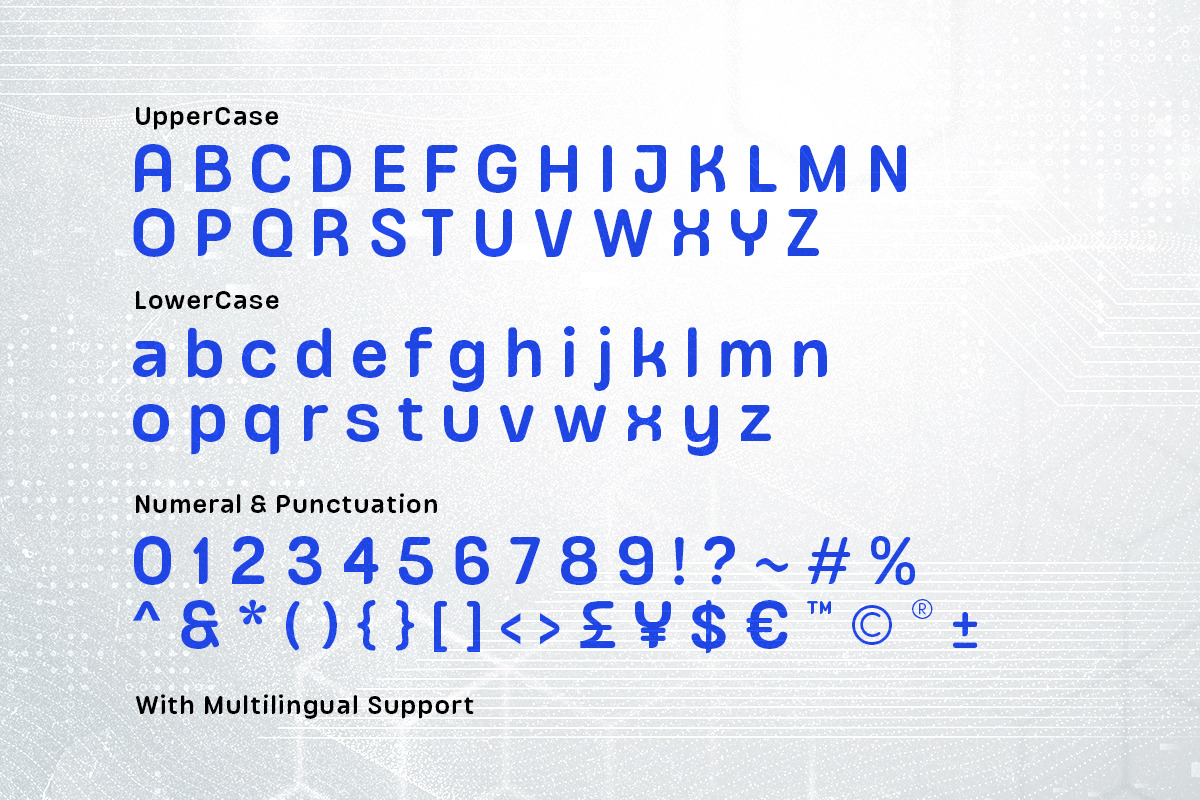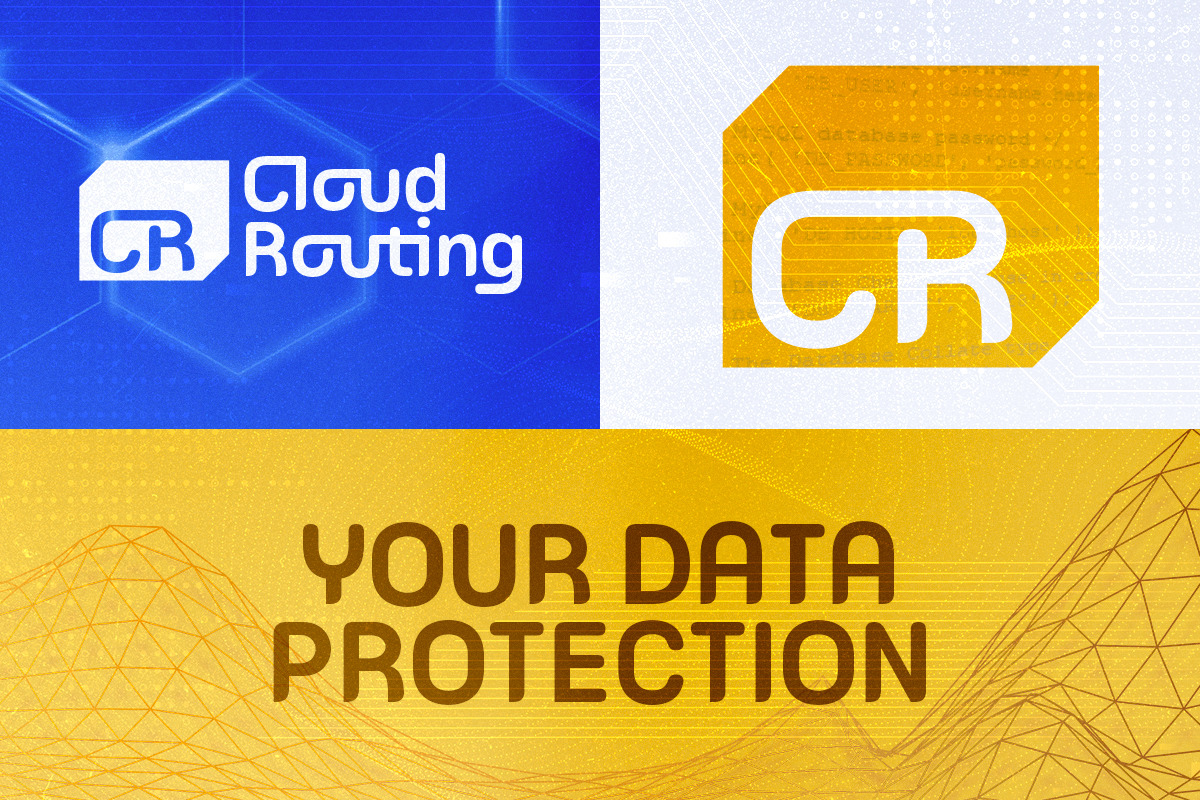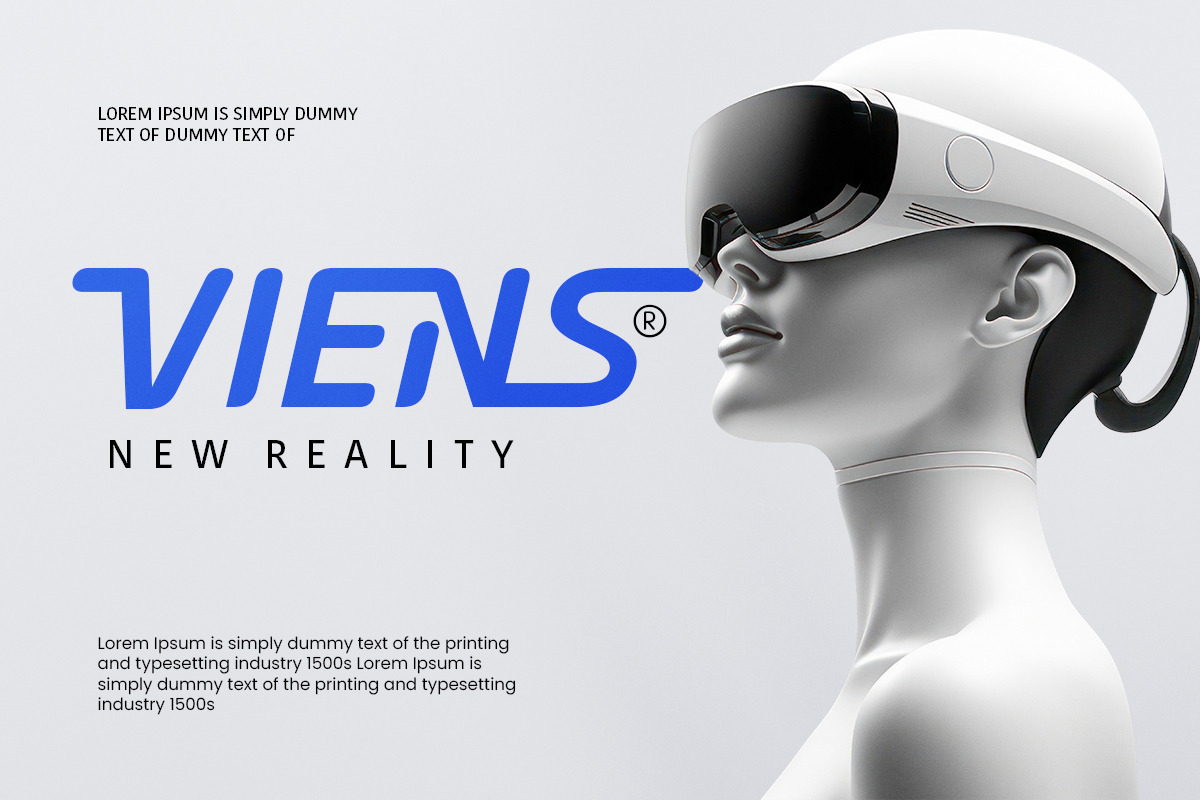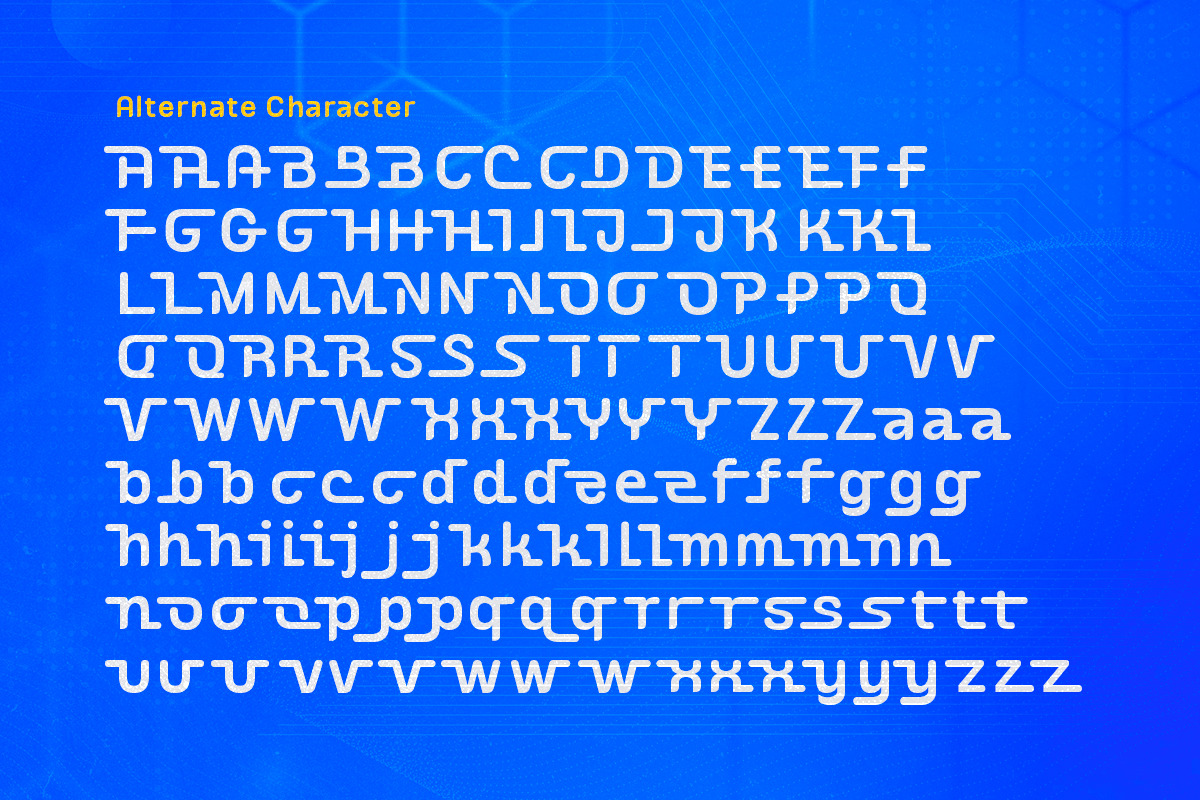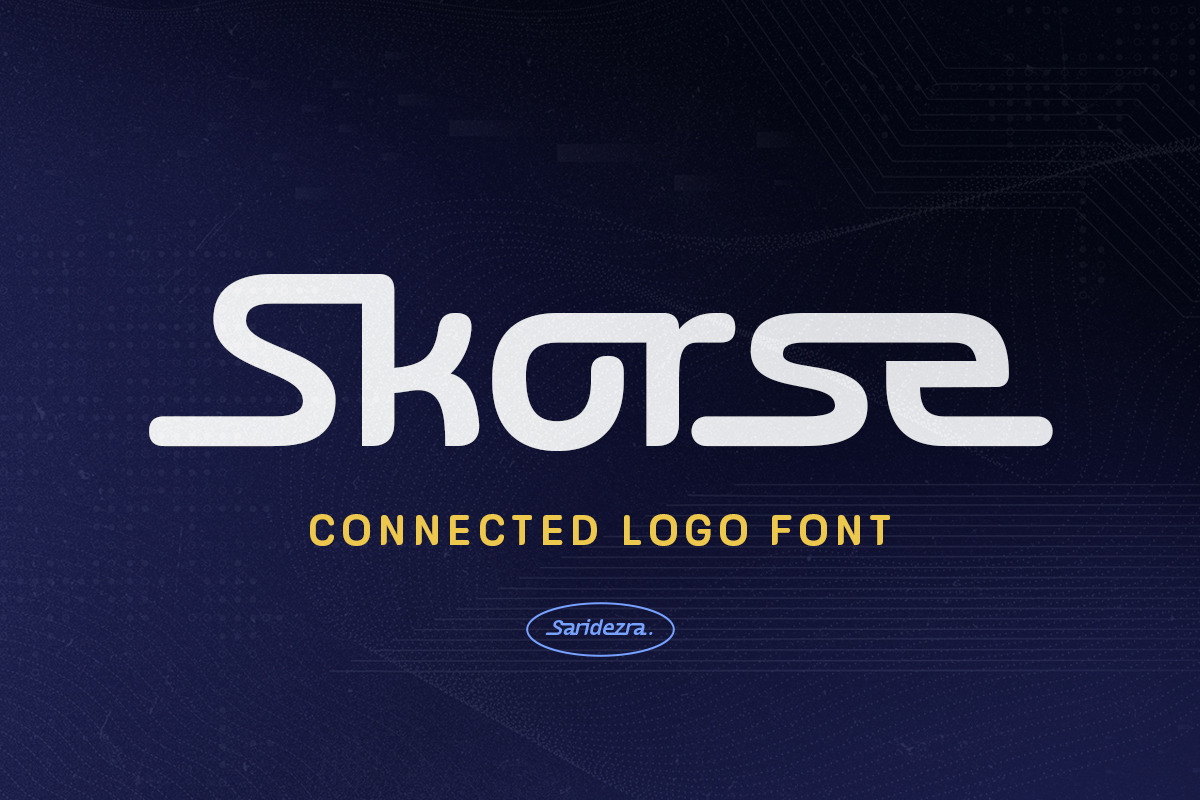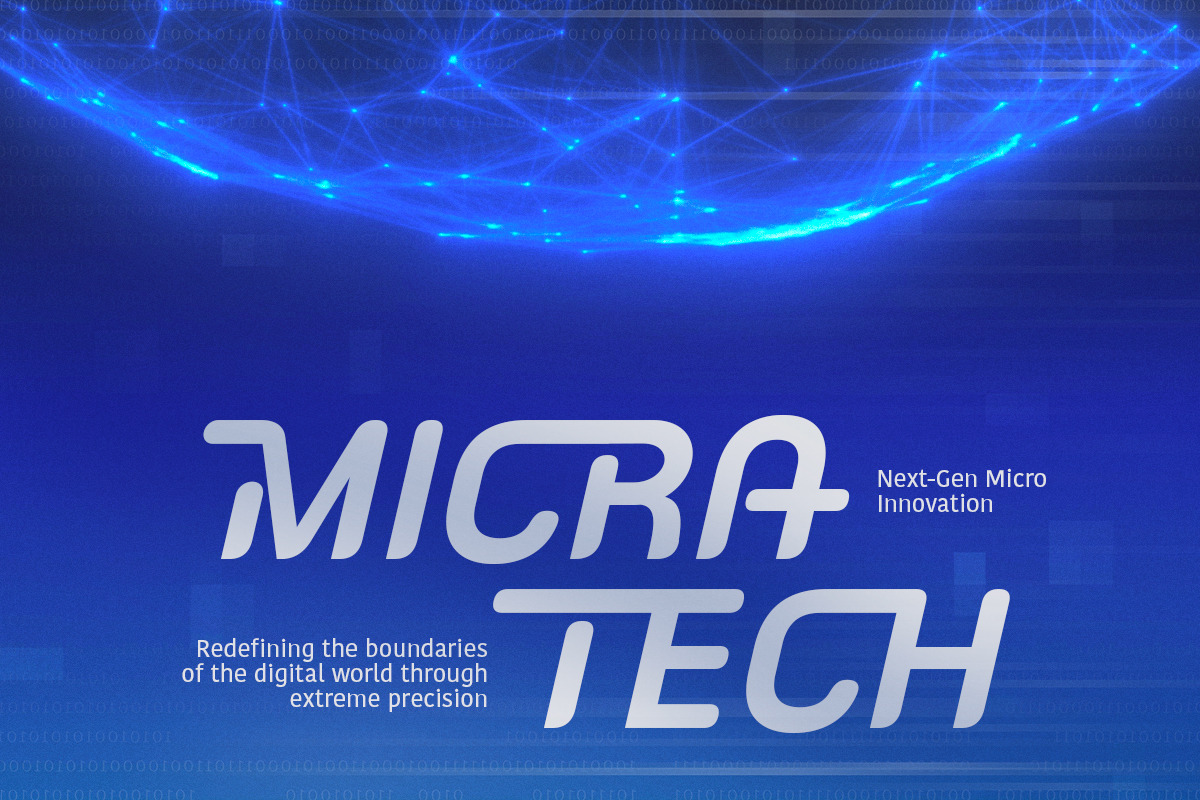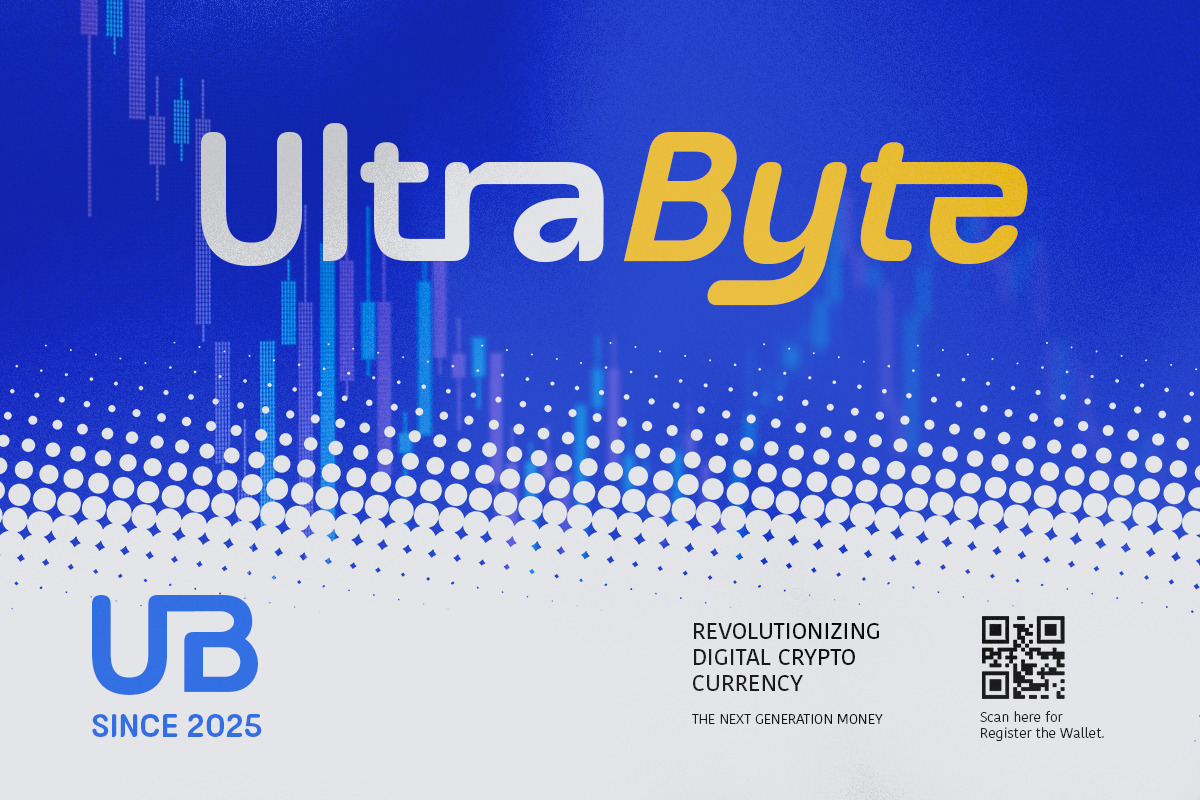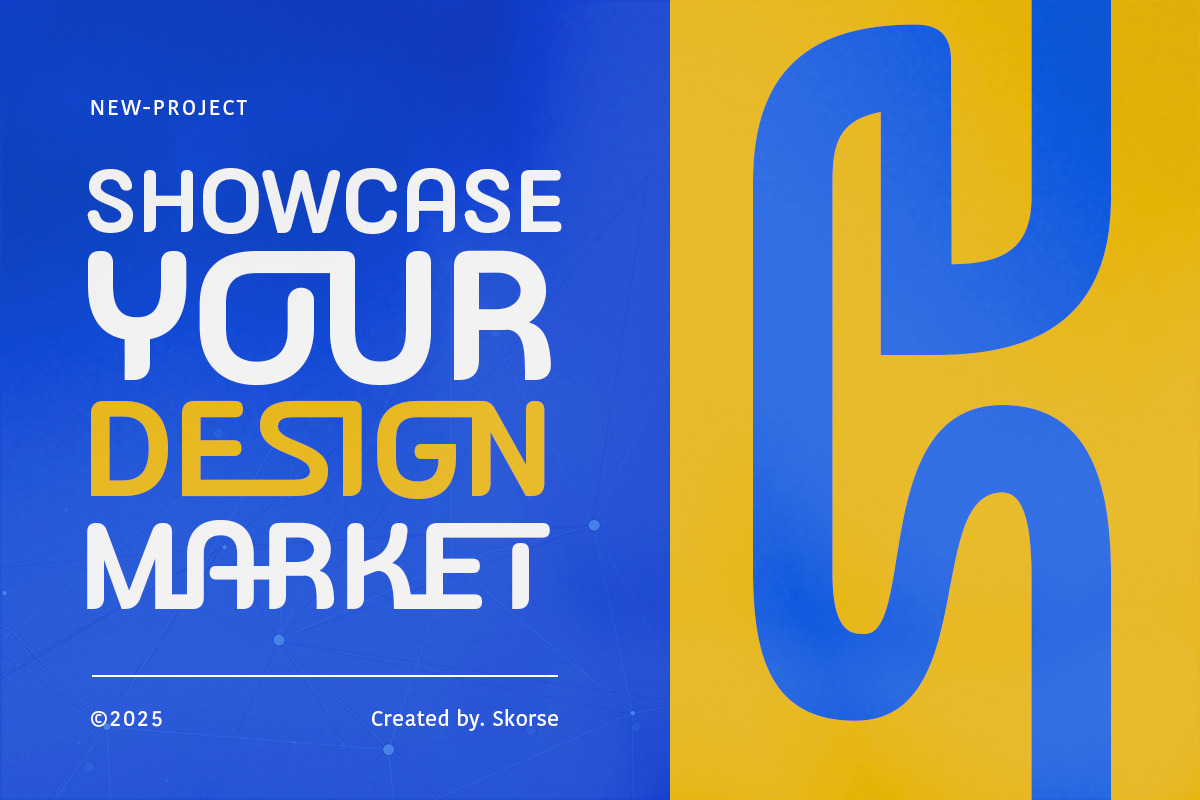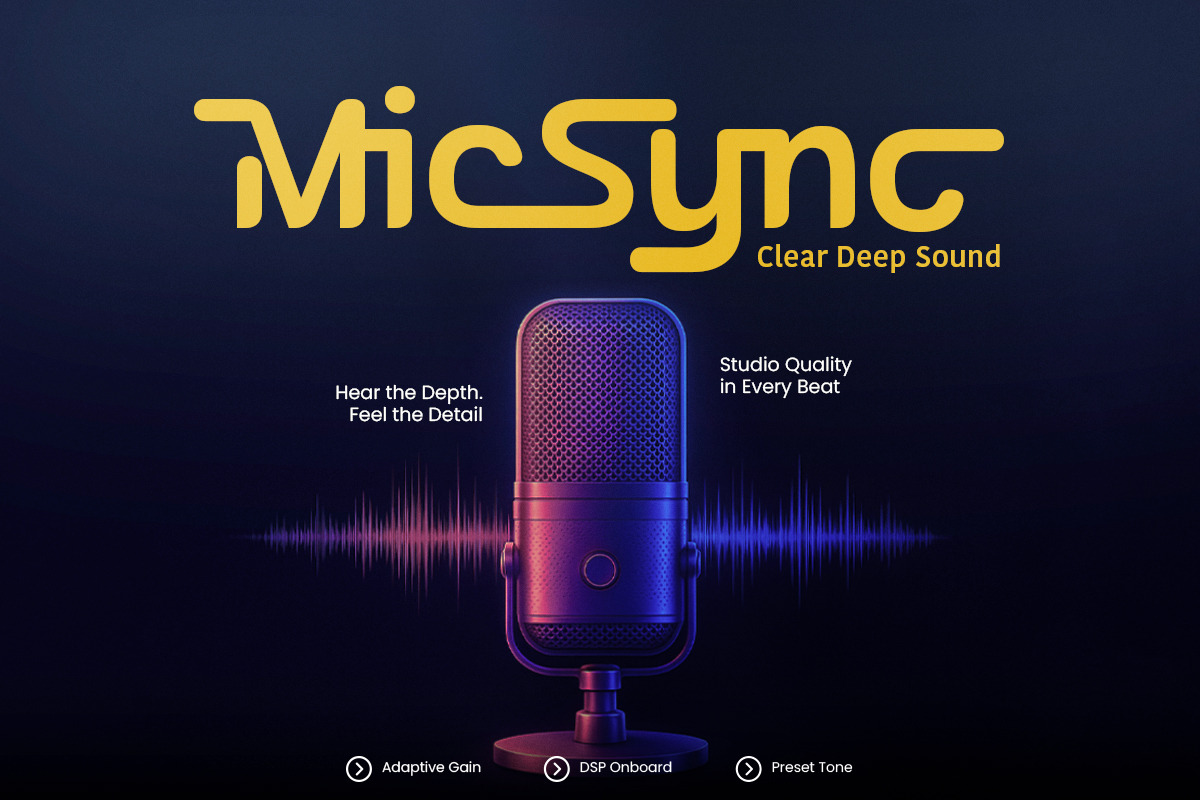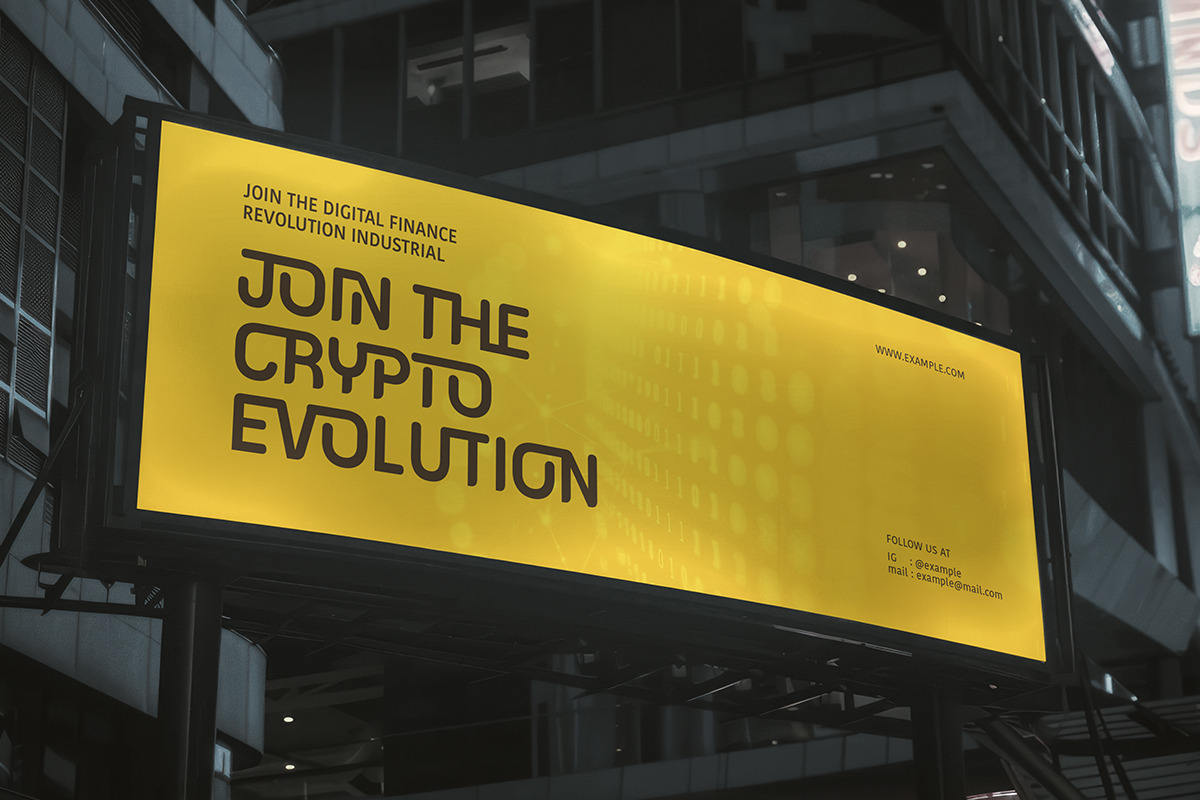
Skorse - Connected Logo Font
Skorse is a sans based logo font with connected alternates. Comes with three alternates each character that you can use to make two or more character looks connected. You can use this font for any purposes such as logotype, branding, hi-fi movie poster, and any project that needs a futuristic looks. Skorse also support multi language.